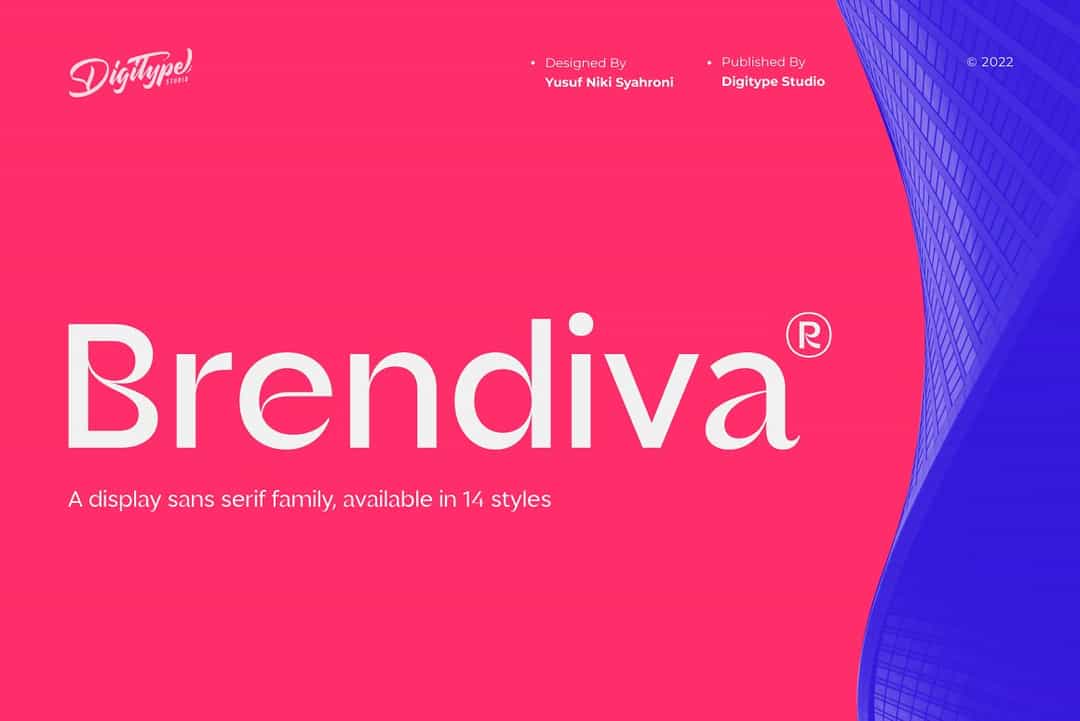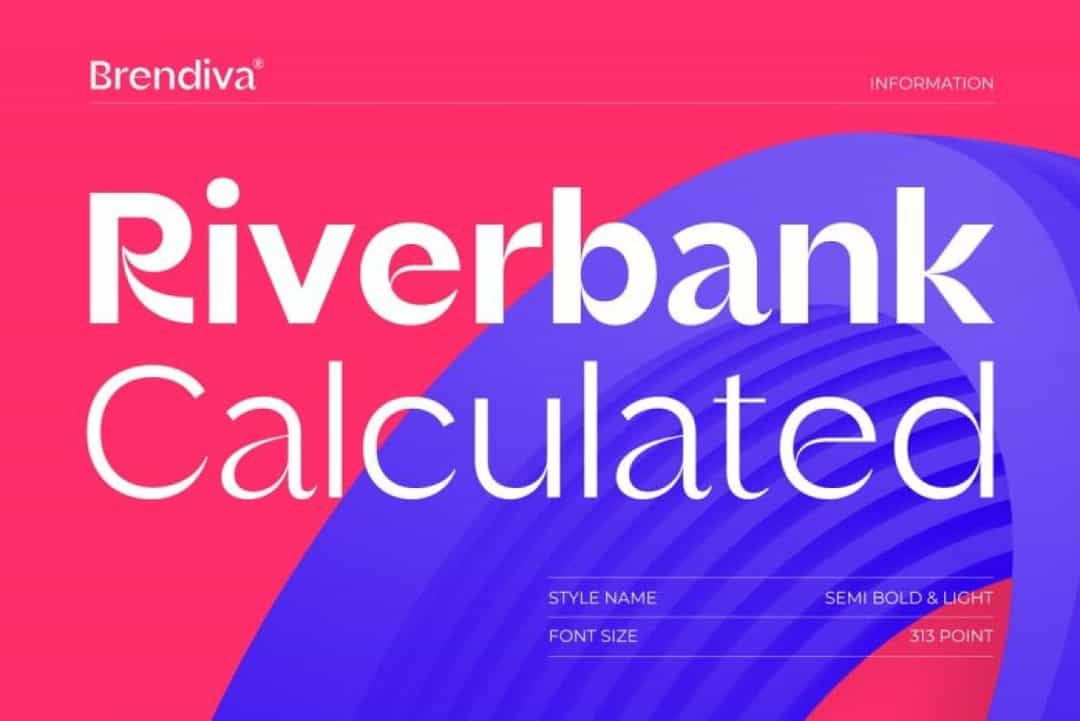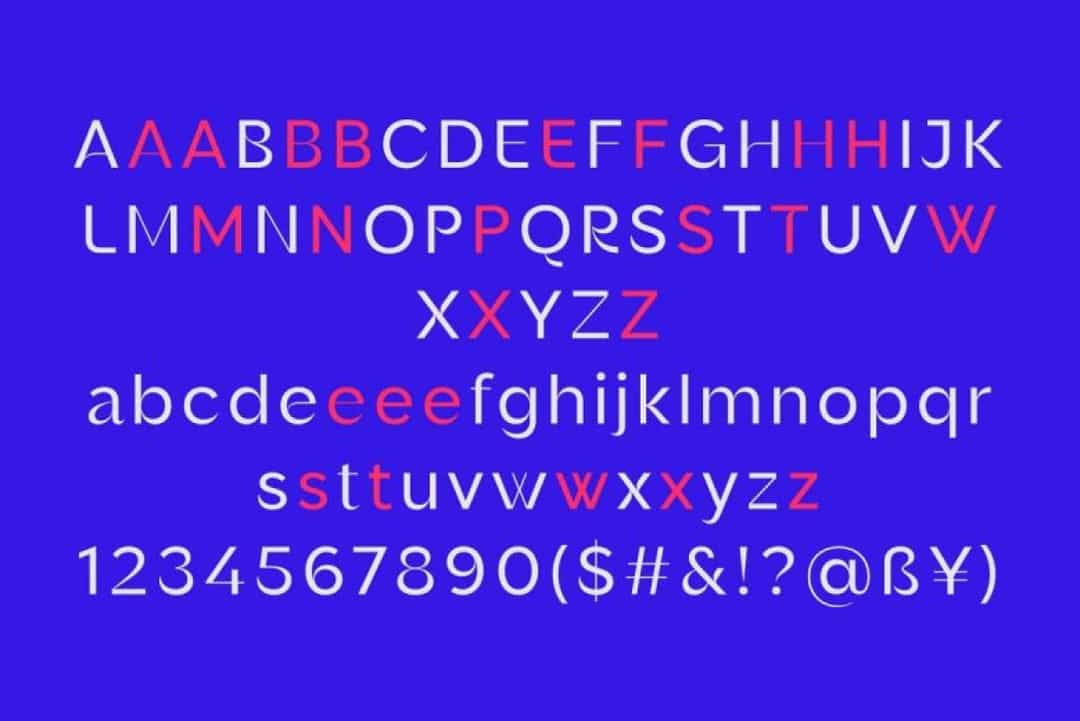
Introduce the Brendiva font family. This open-type sans serif typeface includes 14 variations, seven upright and seven italicized characters. With its clean and organized appearance and striking contrast of certain letters for an attractive and distinctive appearance.